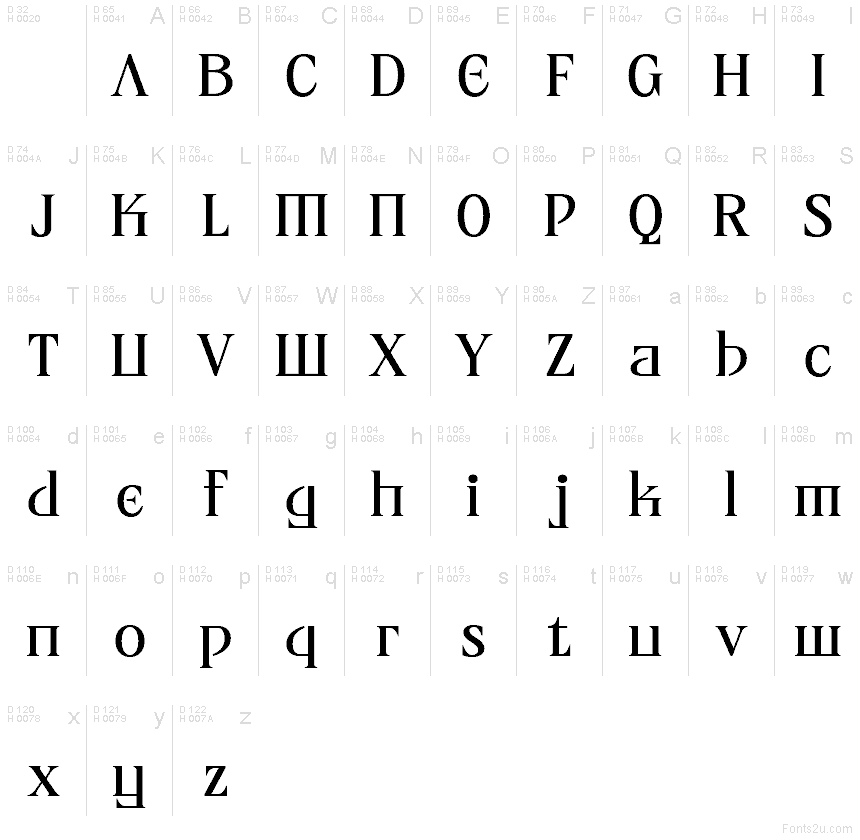
CS Alenka Regular Demo
CS Alenka font by Craft Supply Co. is a free high‑contrast serif display font with Russian‑inspired forms. It stands out with wedge‑cut serifs, chiseled strokes, and angular counters that nod to Cyrillic structure without sacrificing Latin readability. The rhythm is crisp and sculptural-inky thicks meet hairline thins-giving logos and headlines a dramatic, old‑world bite.
Using CS Alenka, your work gains a ceremonial, slightly mysterious tone that shines on packaging, poster titles, restaurant or bar branding, book covers, event identities, and editorial pull quotes. This free font’s tight spacing and geometric echoes create a steady cadence that reads strong at large sizes. Pair with a plain geometric sans for body copy, and let CS Alenka handle the marquee moments.